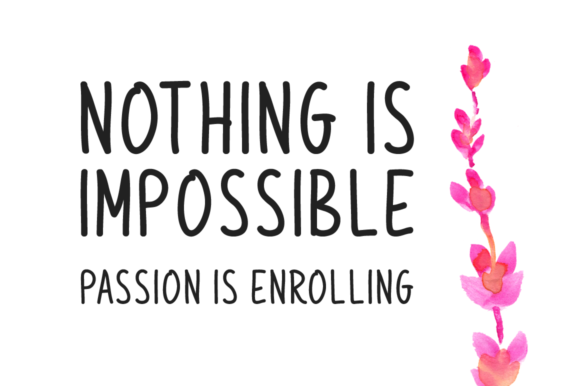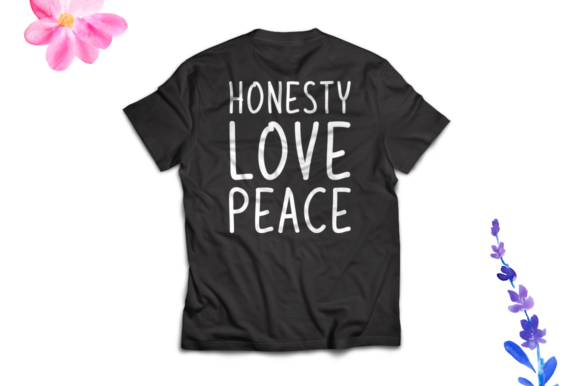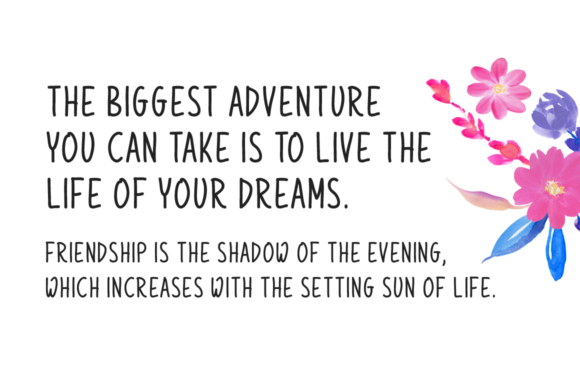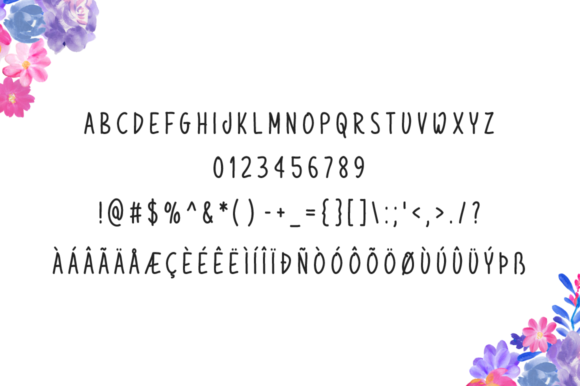
Beauteous Font
About Beauteous Font
Beauteous is a beautiful handwritten font that is perfectly suited for stationery, logos, t-shirt, paper, print design, website header, photo frame, flyer, music cover, poster, image slider and much more.